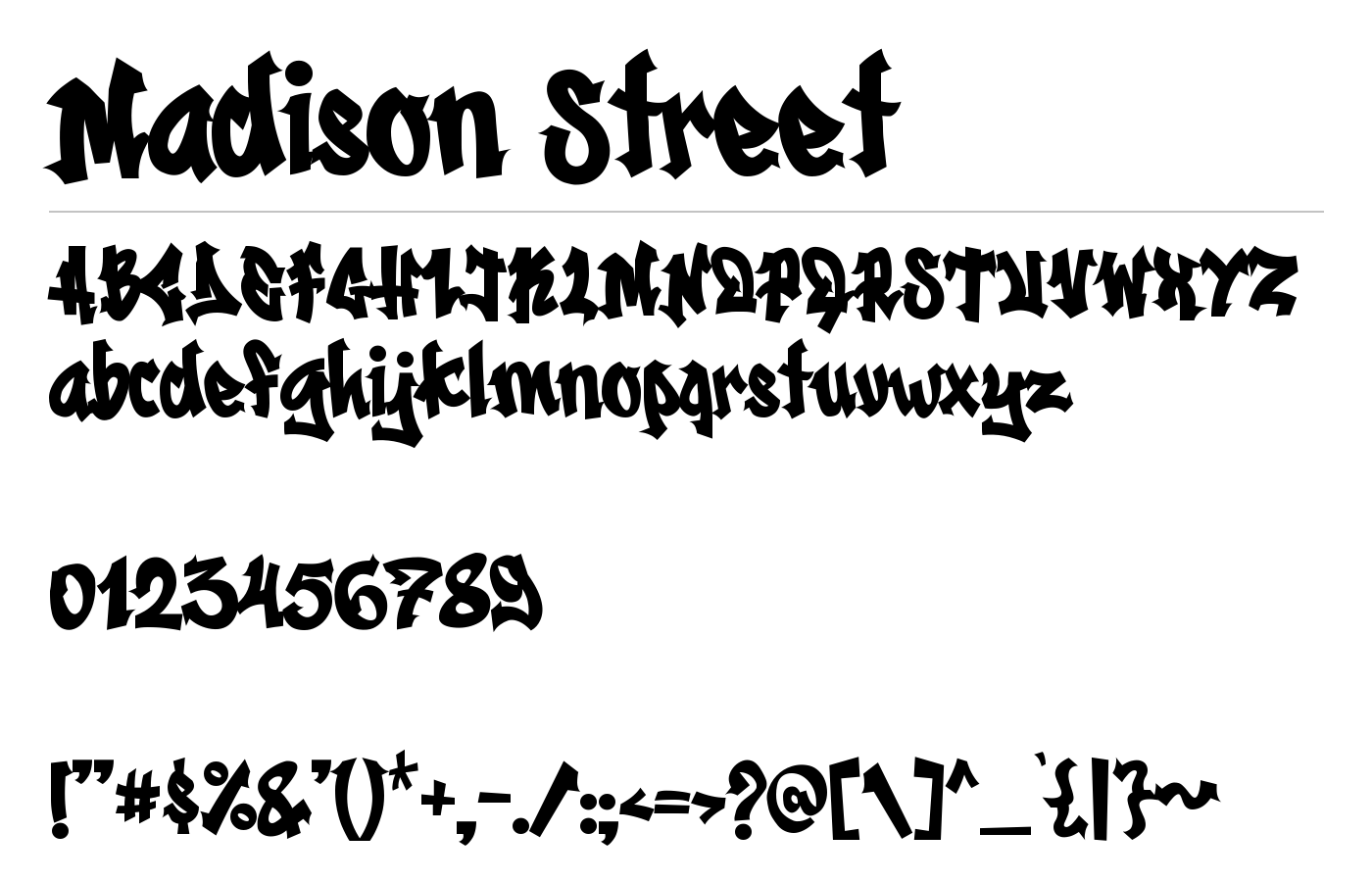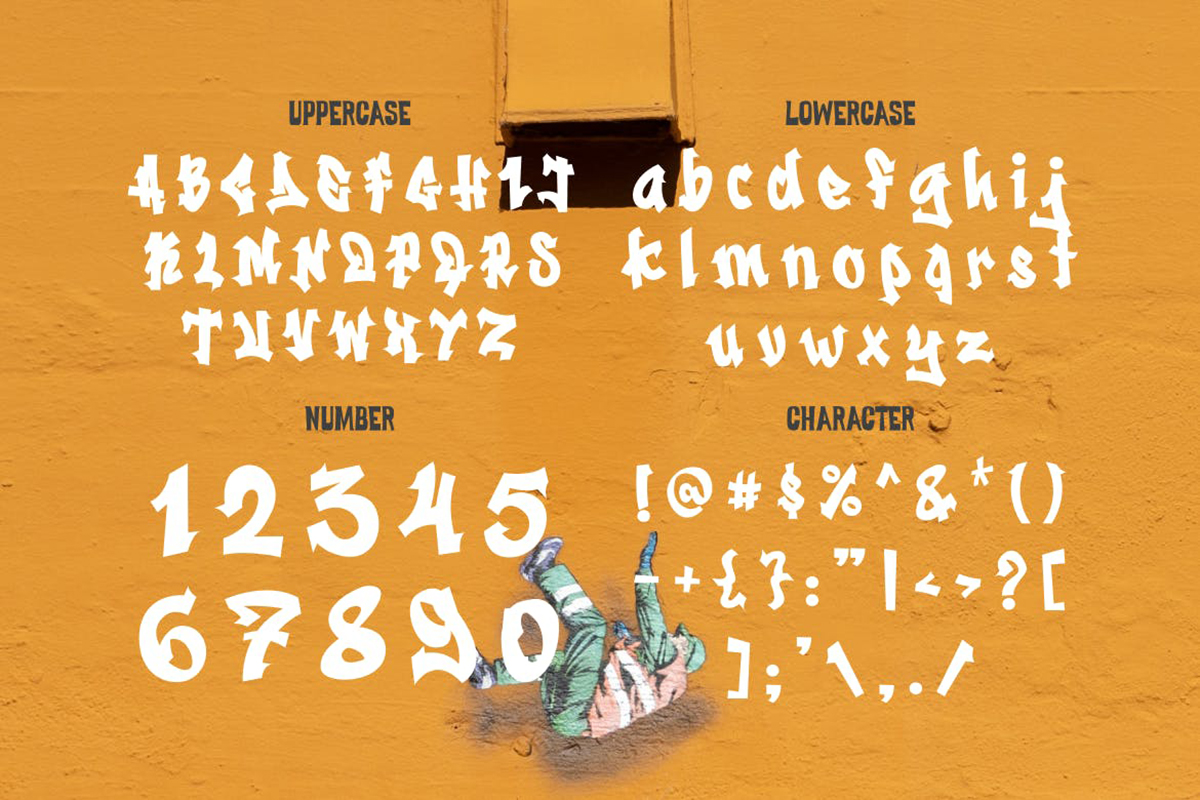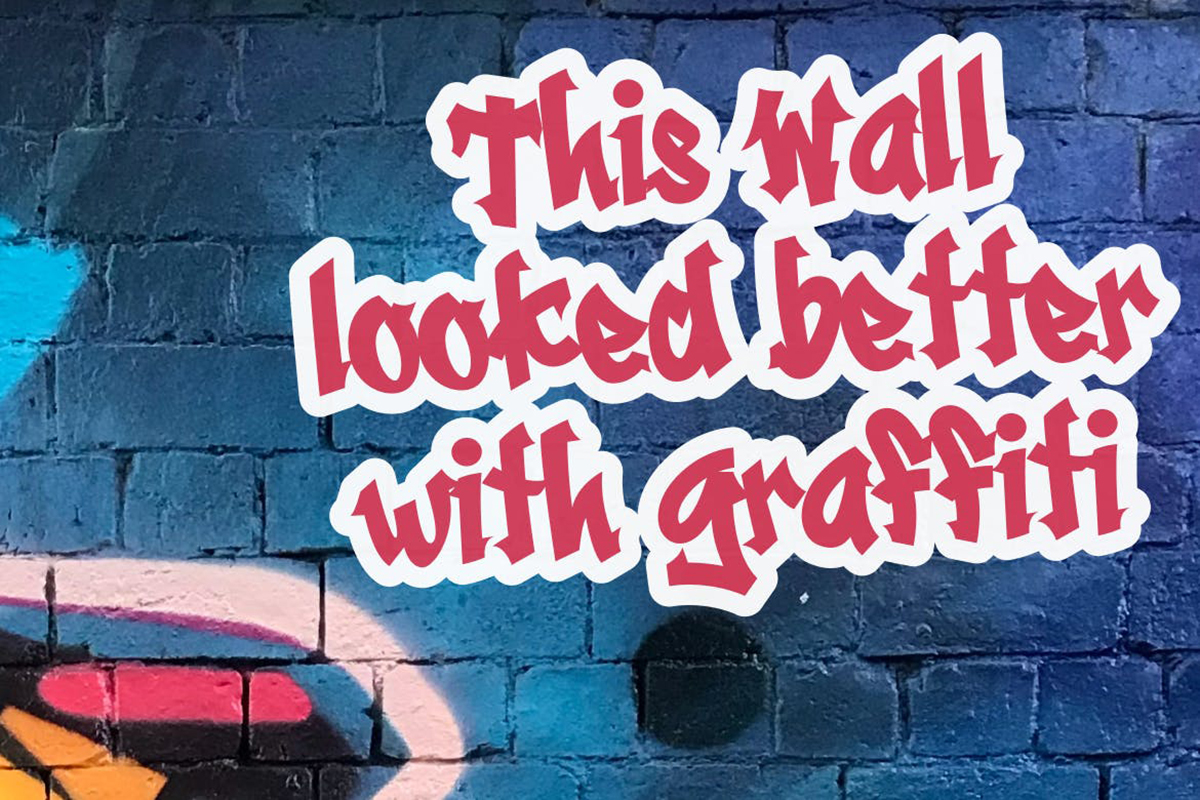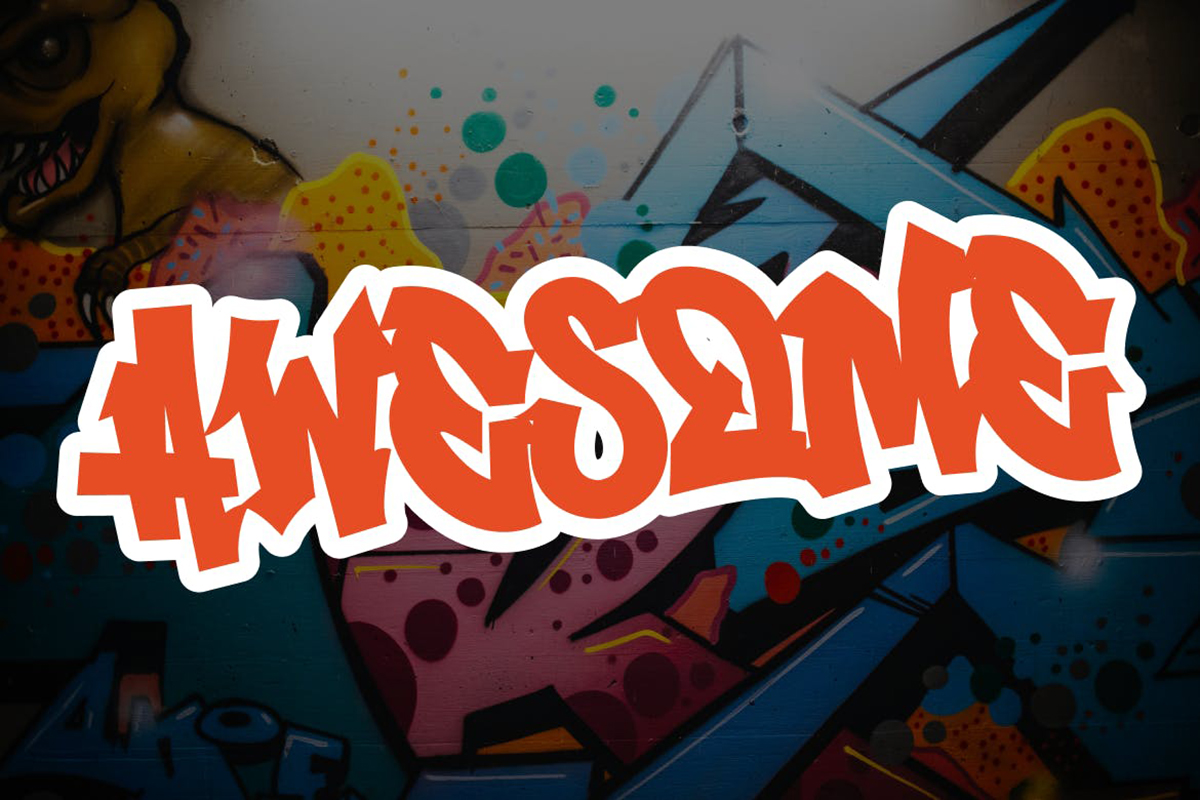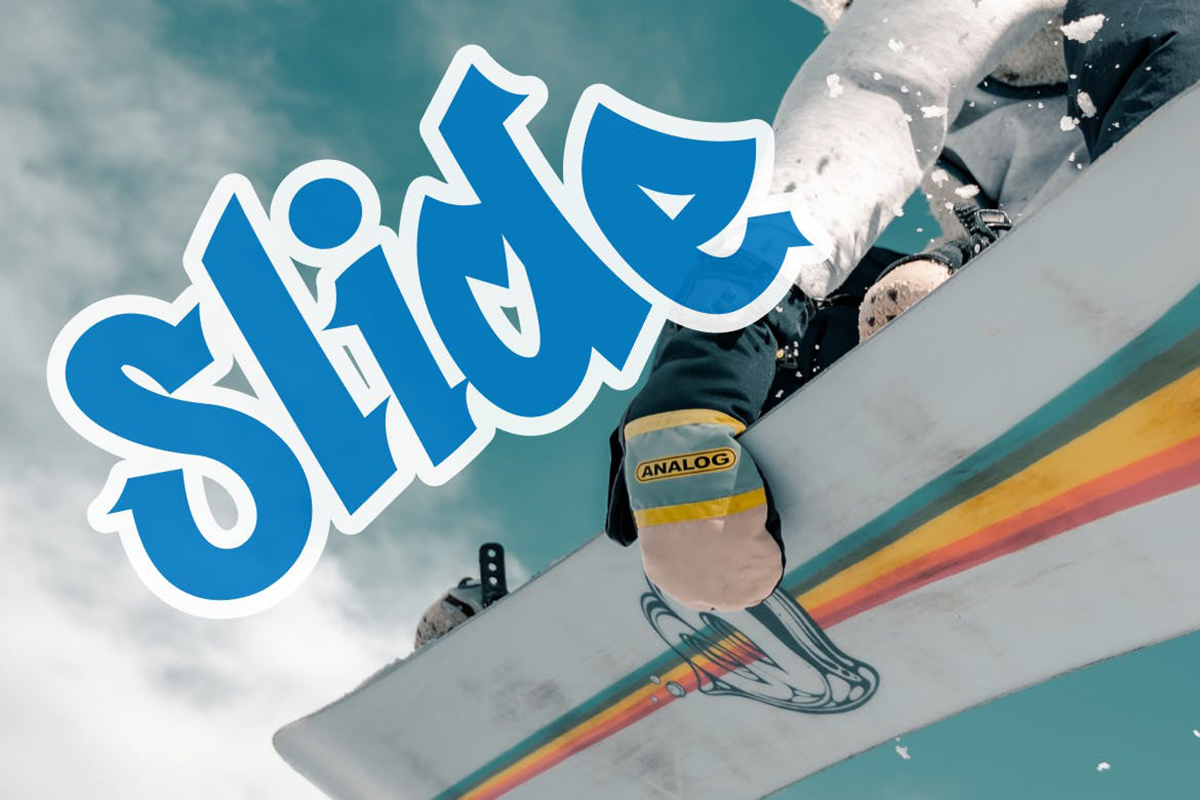
Tokopress Studio is a bold, decorative display font with a playful yet edgy vibe, characterized by its thick, angular strokes and sharp, almost graffiti-like serifs. Its sturdy, condensed letterforms and strong visual impact make it perfect for urban branding, posters, or logos that want to stand out with a unique, artistic personality. This font excels at grabbing attention and adding character where a bold statement is needed.
Tokopress Studio
About Tokopress Studio
| Font family | Tokopress Studio |
| Designer | TOKOPRESS Team |